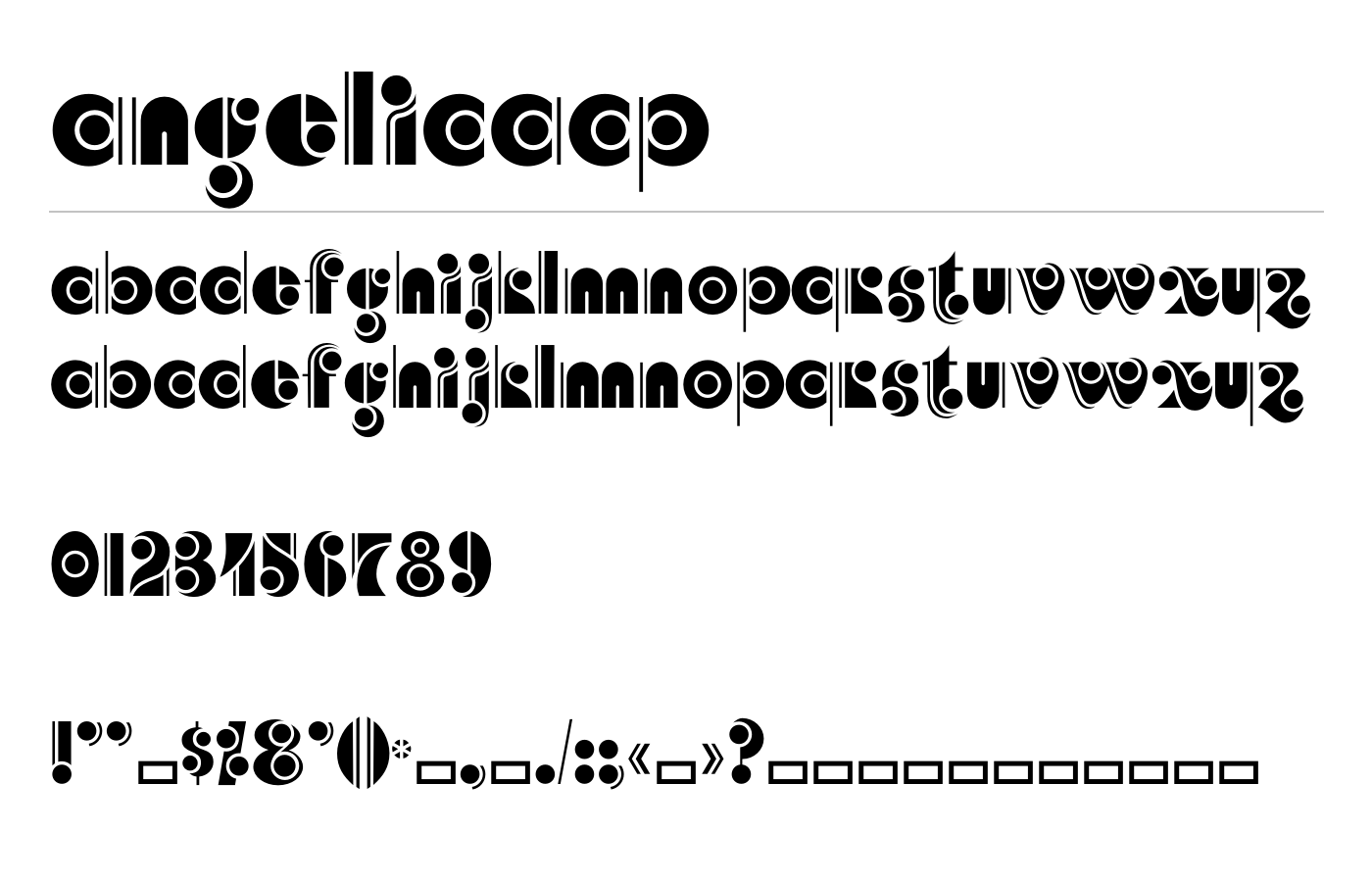
AngelicaCP is a bold, geometric display font characterized by its thick, solid strokes and playful, circular shapes, giving it a modern and artistic feel. Its unique letterforms feature strong contrasts between filled and open spaces, making it perfect for eye-catching logos, posters, and creative branding where a quirky, contemporary vibe is desired. This font stands out best in large sizes, bringing a sense of fun and sophistication to headline use.
AngelicaCP Font
About AngelicaCP Font